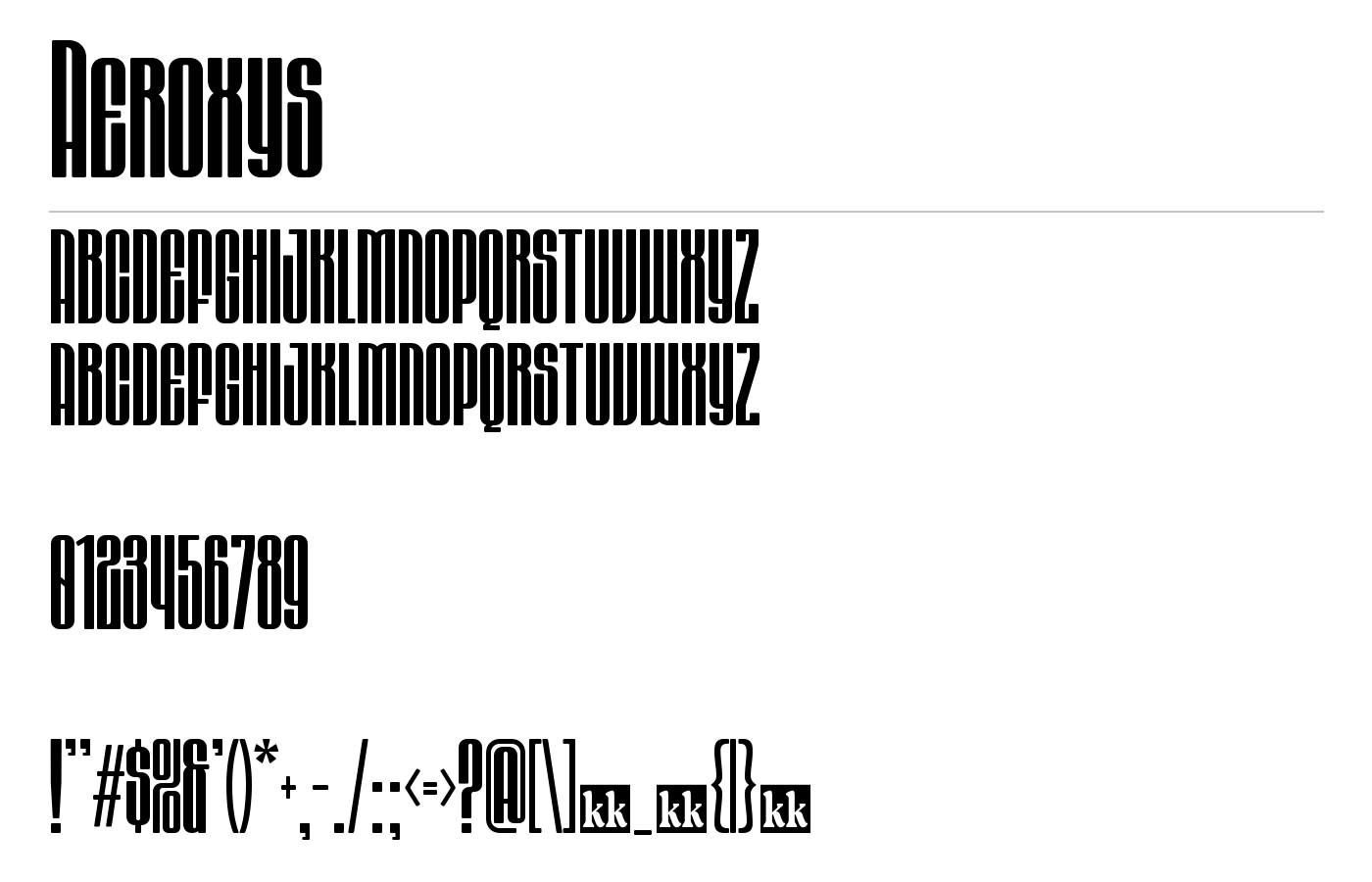
Aeroxys is a bold, condensed sans serif font with a modern, geometric style that stands out with its tall, narrow letterforms and consistent stroke weight. Its sharp edges and uniform lines give it a sleek, futuristic vibe, making it perfect for striking headlines, branding, and designs that seek a strong, contemporary impact. This font works especially well in projects where space is limited but a powerful, confident statement is needed.
Aeroxys Font
About Aeroxys Font